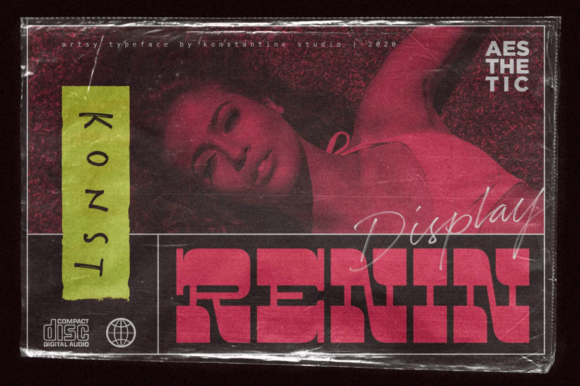
Journey into the realm of typography and discover Renin, a captivating slab serif font that exudes boldness, vintage charm, and a touch of the untamed West. Crafted meticulously by konstantinestudio, this font is a visual masterpiece that will transform your creative projects into captivating works of art.
Renin's robust letterforms command attention, evoking a sense of nostalgia and authenticity. Its sharp edges and confident strokes create a striking presence, making it the perfect choice for labels, branding, advertisements, and any design that seeks a retro flair.
Imagine your designs adorned with Renin's classic beauty. Its thick, slab-like serifs add a timeless elegance, reminiscent of old-world charm. Experiment with Renin's versatile nature and witness how effortlessly it adapts to a multitude of design styles, from vintage posters to modern logos. The possibilities are boundless.
Renin's charm extends beyond its aesthetic appeal. Its carefully crafted curves and angles ensure excellent readability, making it an ideal choice for body text. Whether you're crafting captivating marketing materials or enhancing the readability of your website, Renin delivers a seamless reading experience that captivates and engages.
As a designer, you understand the profound impact that typography can have on your creations. With Renin, you possess a font that transcends mere aesthetics and becomes an integral part of your design narrative. Its unique character breathes life into your projects, evoking emotions and creating a lasting impression on your audience.
Embrace Renin and unlock a world of creative possibilities. Let your imagination soar as you explore the endless applications of this remarkable font. From elegant invitations to eye-catching social media posts, Renin will elevate your designs to new heights of sophistication and originality.